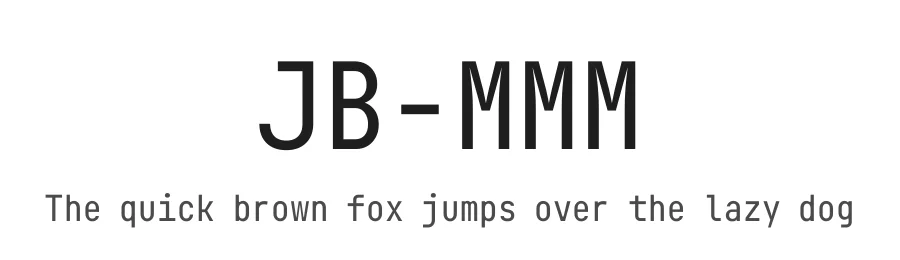
About Mono MMM 5 Font
Mono MMM 5 is a sans-serif font designed by Marcelo Magalhães Macedo. It includes 263 glyphs, a regular weight, TTF (TrueType) format, and 214 languages. Mono MMM 5 is free to download; check the license details on this page before commercial use. Sans-serif fonts like Mono MMM 5 work best for clean body text, user interfaces, branding, and modern layouts.
Mono MMM 5 Font is a versatile sans-serif font that works for both headings and body text. Pair it with a contrasting serif or slab serif font to add visual interest and a clear distinction between titles and body copy.
Mono MMM 5 Font
Mono MMM 5 Font is a sans serif typeface by Marcelo Magalhães Macedo, ideal for logos, invitations, branding, and creative projects.